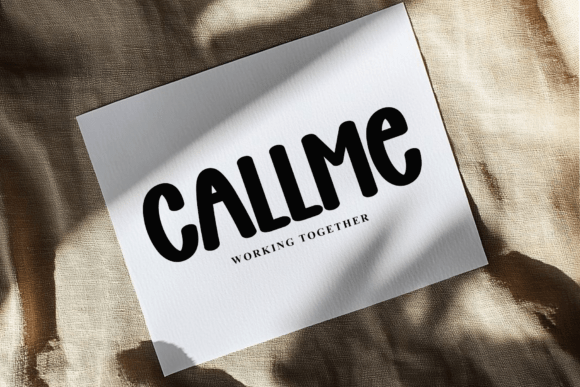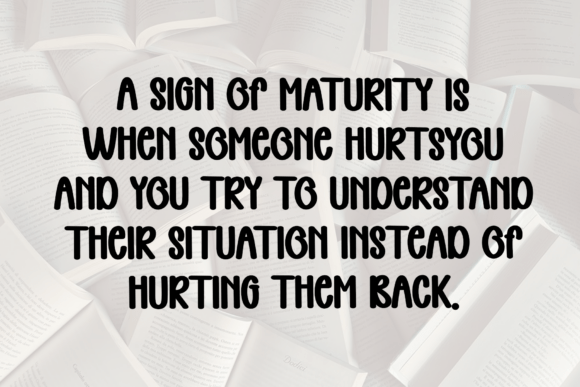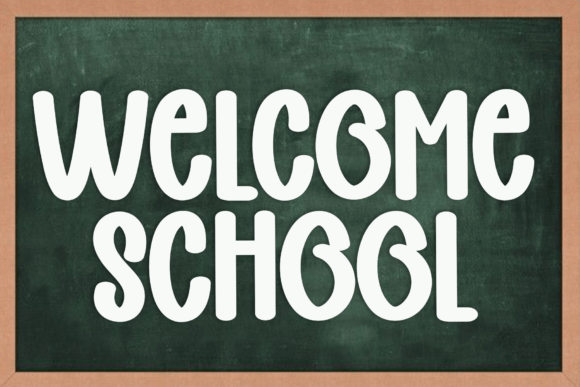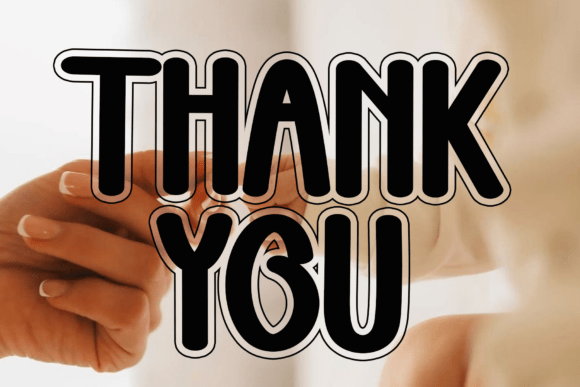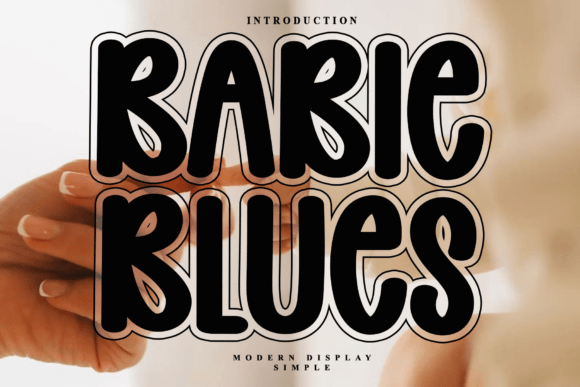
Babie Blues Font: Unleash Your Creativity with this Bold and Energetic Handwritten Display Font
Are you tired of using the same old fonts in your designs? Do you want to add a touch of personality and flair to your projects? Look no further than Babie Blues, a bold and energetic handwritten display font that’s sure to make your message impossible to ignore.
The Unique Characteristics of Babie Blues
Babie Blues is a one-of-a-kind font that boasts chunky, expressive letterforms and a slightly uneven, organic edge. This hand-crafted style mimics the look of marker lettering, giving it a fun, spontaneous vibe that’s perfect for designs that need a confident, playful punch.
With Babie Blues, you can add a touch of whimsy and creativity to any project. Its bold and energetic feel makes it ideal for designs that require a statement piece, such as posters, t-shirts, adventure-themed graphics, children’s books, branding, packaging, and social media visuals.
The Benefits of Using Babie Blues in Your Designs
So, why choose Babie Blues over other fonts? Here are just a few benefits of using this amazing font in your designs:
- Stand out from the crowd: Babie Blues is a unique and eye-catching font that’s sure to grab attention. Its bold and energetic feel makes it perfect for designs that need to stand out from the crowd.
- Add a touch of personality: With Babie Blues, you can add a touch of personality and flair to your designs. Its hand-crafted style and slightly uneven edge give it a human, organic feel that’s hard to replicate with other fonts.
- Perfect for a variety of projects: Babie Blues is a versatile font that can be used in a variety of projects, from posters and t-shirts to branding and social media visuals.
- Easy to read: Despite its bold and chunky feel, Babie Blues is surprisingly easy to read. Its clear and expressive letterforms make it perfect for designs that need to communicate a message quickly and effectively.
How to Use Babie Blues in Your Designs
Using Babie Blues in your designs is easy. Here are a few tips to get you started:
- Use it as a headline font: Babie Blues is perfect for use as a headline font. Its bold and energetic feel makes it ideal for grabbing attention and drawing the eye.
- Pair it with other fonts: Babie Blues can be paired with a variety of other fonts to create a unique and interesting design. Try pairing it with a clean sans-serif font for a bold and modern look.
- Experiment with colors: Babie Blues looks great in a variety of colors. Try experimenting with different colors and gradients to find the perfect look for your design.
Who is Babie Blues Perfect for?
Babie Blues is perfect for designers and crafters who want to add a touch of personality and flair to their designs. It’s ideal for:
- Graphic designers: Babie Blues is a great font for graphic designers who want to create bold and eye-catching designs.
- Crafters: Babie Blues is perfect for crafters who want to add a personal touch to their projects.
- Small business owners: Babie Blues is a great font for small business owners who want to create a unique and memorable brand identity.
In conclusion, Babie Blues is a bold and energetic handwritten display font that’s perfect for designers and crafters who want to add a touch of personality and flair to their designs. Its unique characteristics, versatility, and ease of use make it a great choice for a variety of projects. So why not give Babie Blues a try and see how it can elevate your designs to the next level?